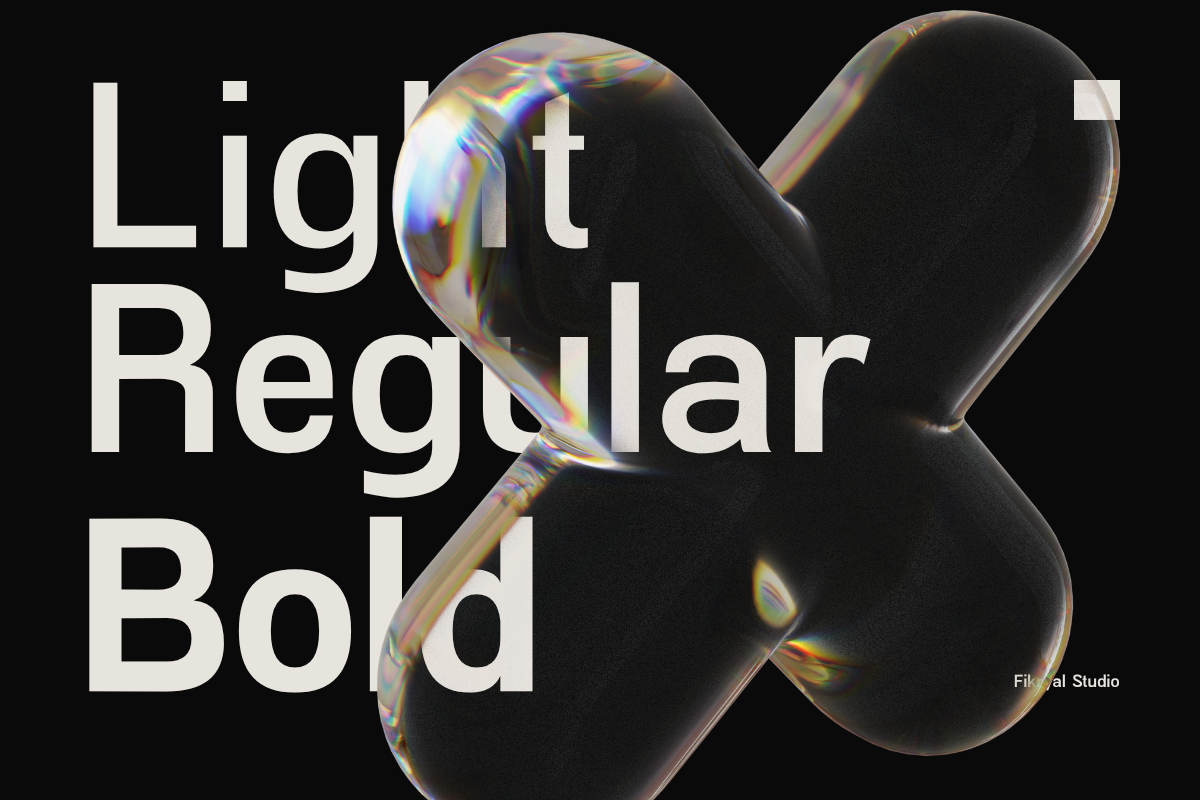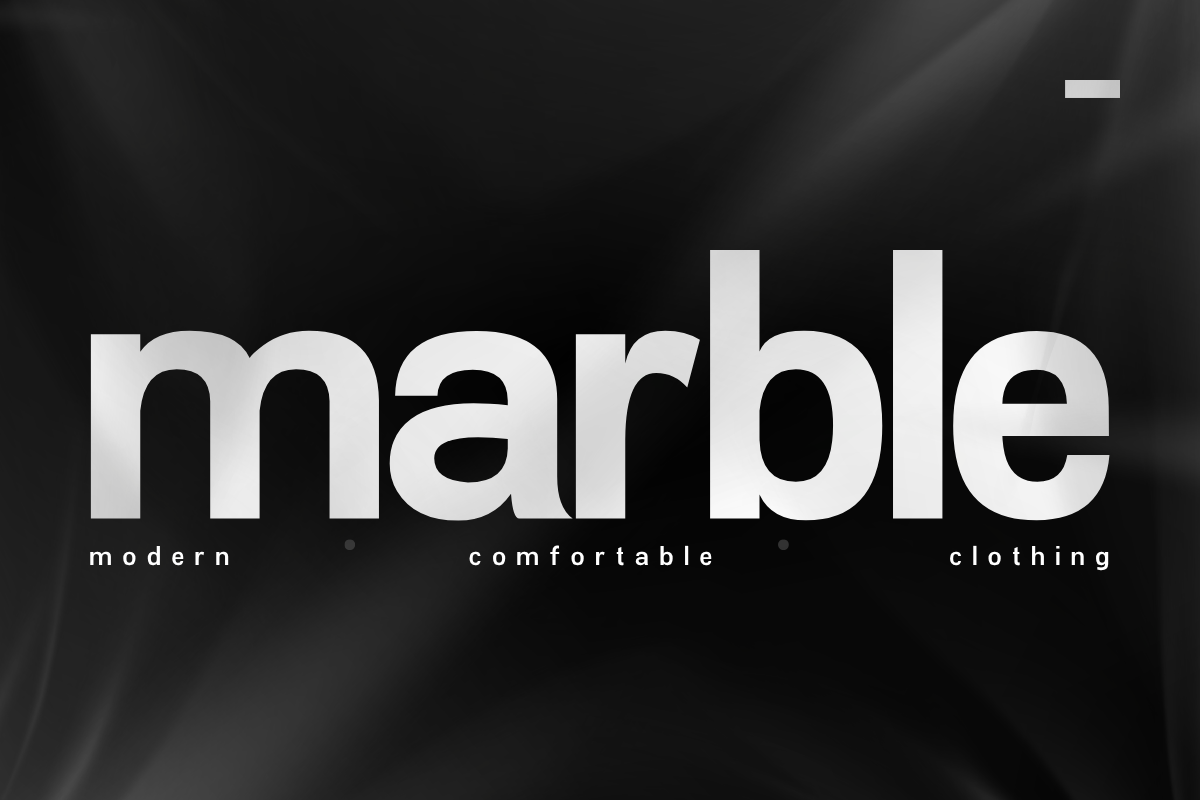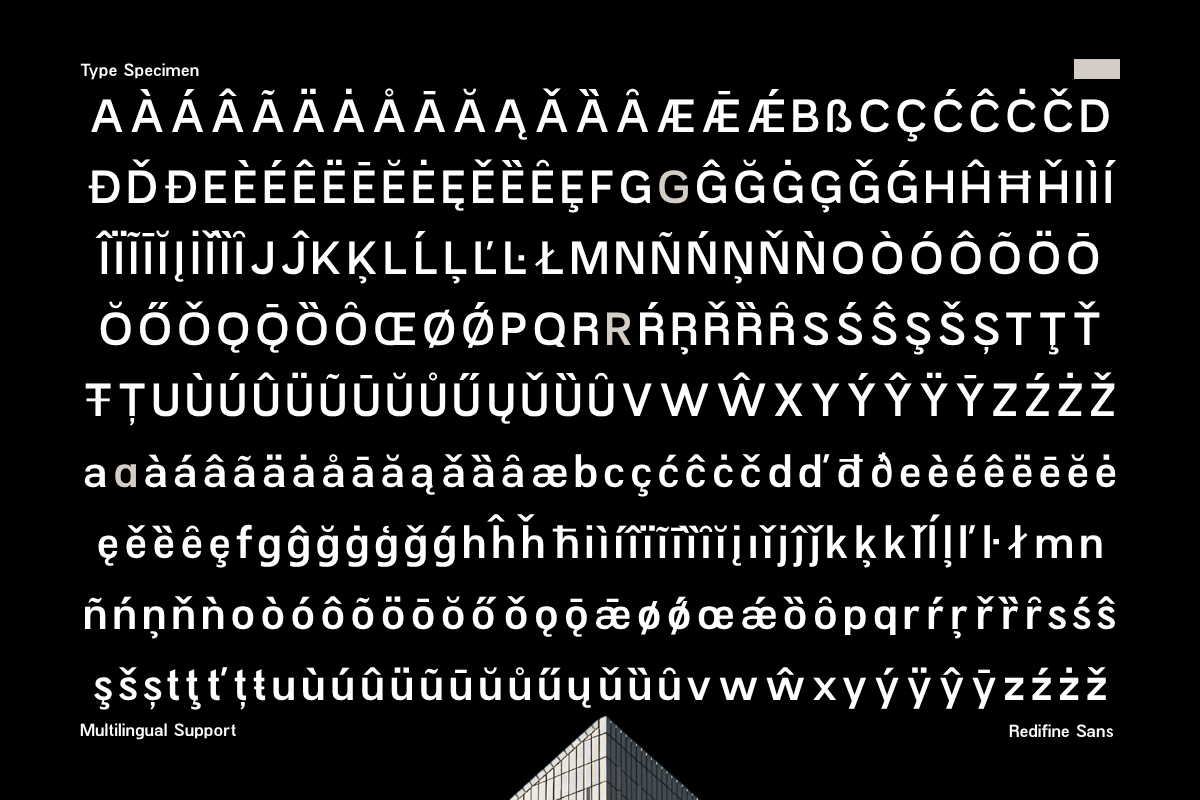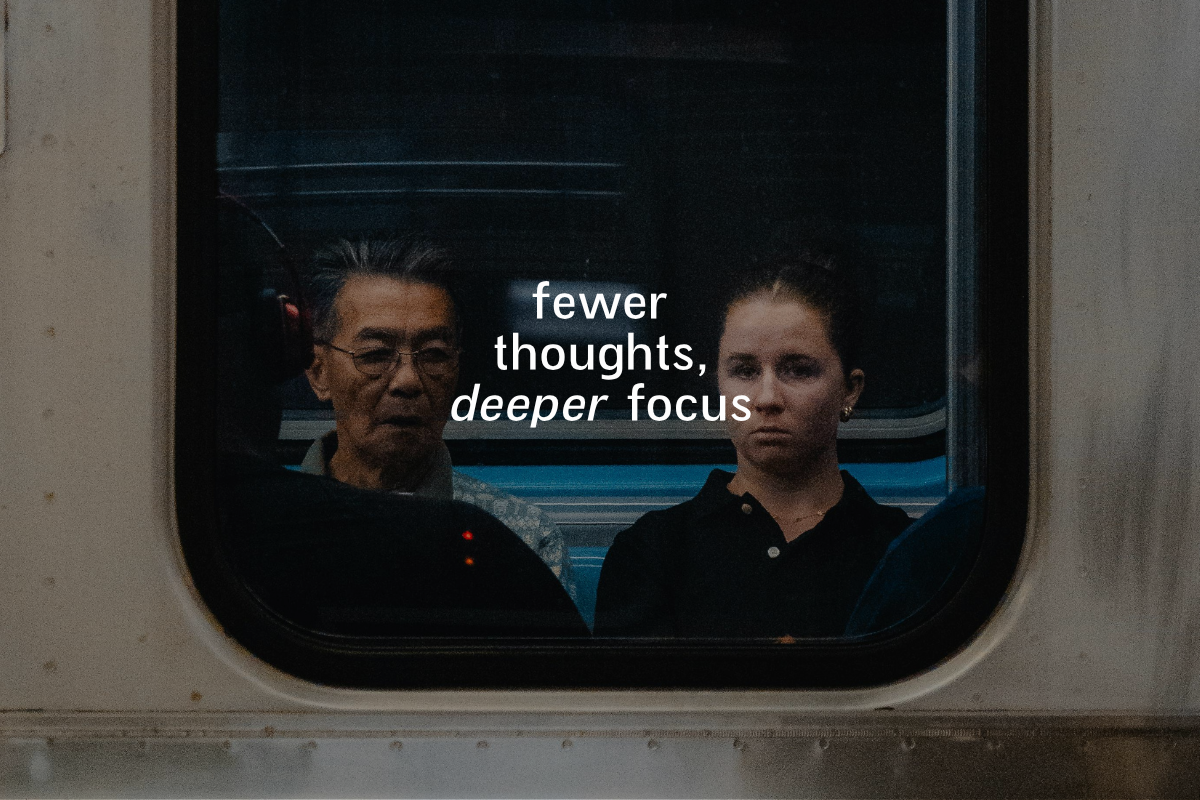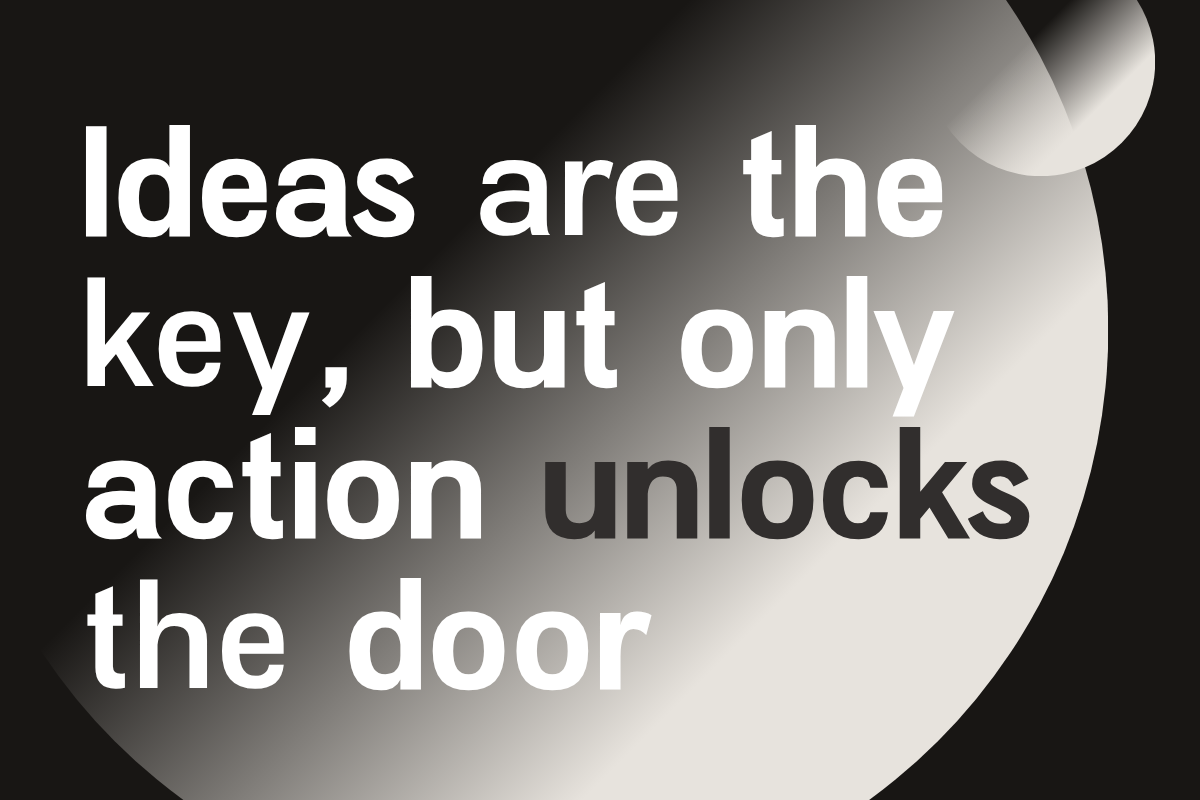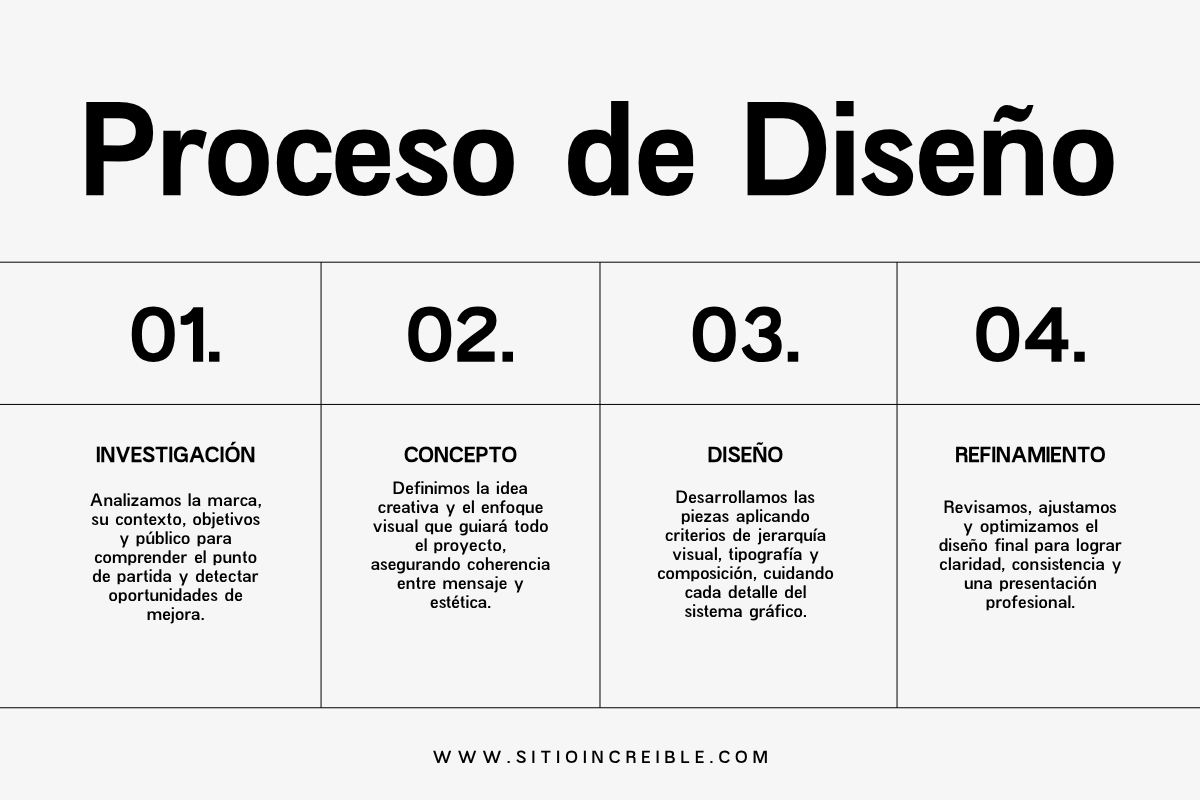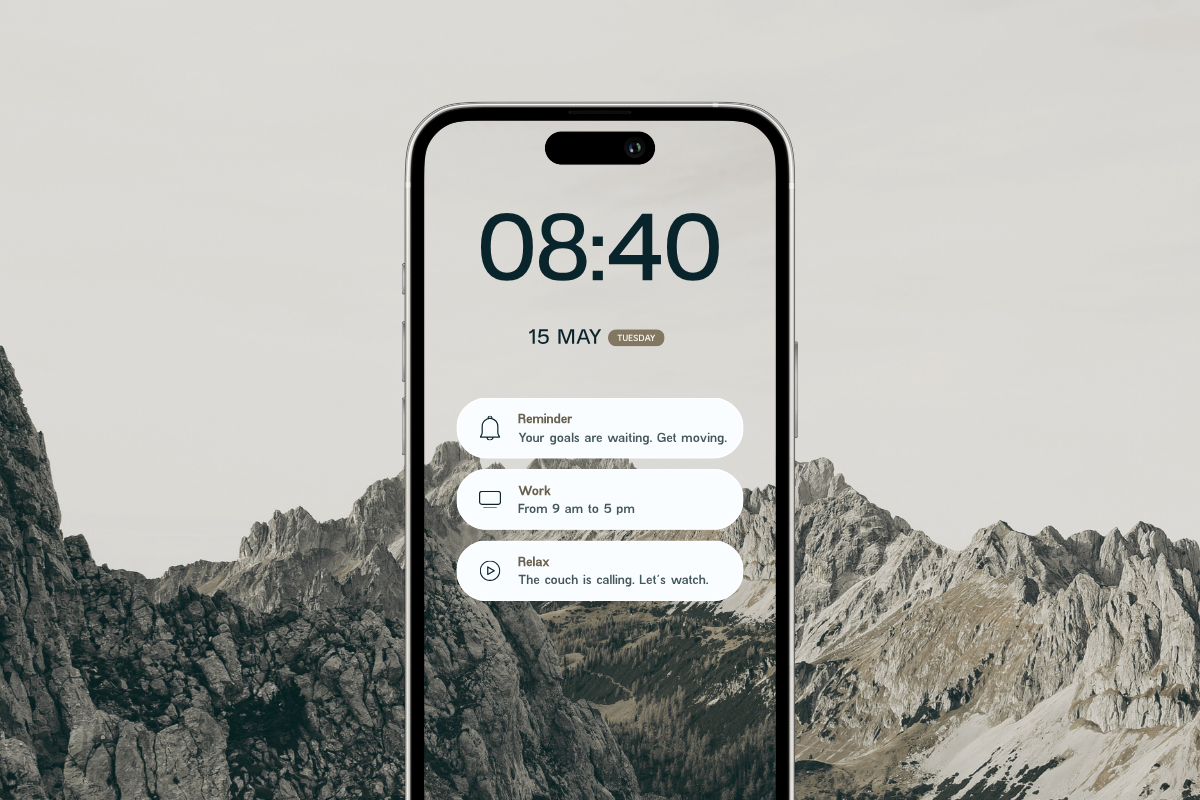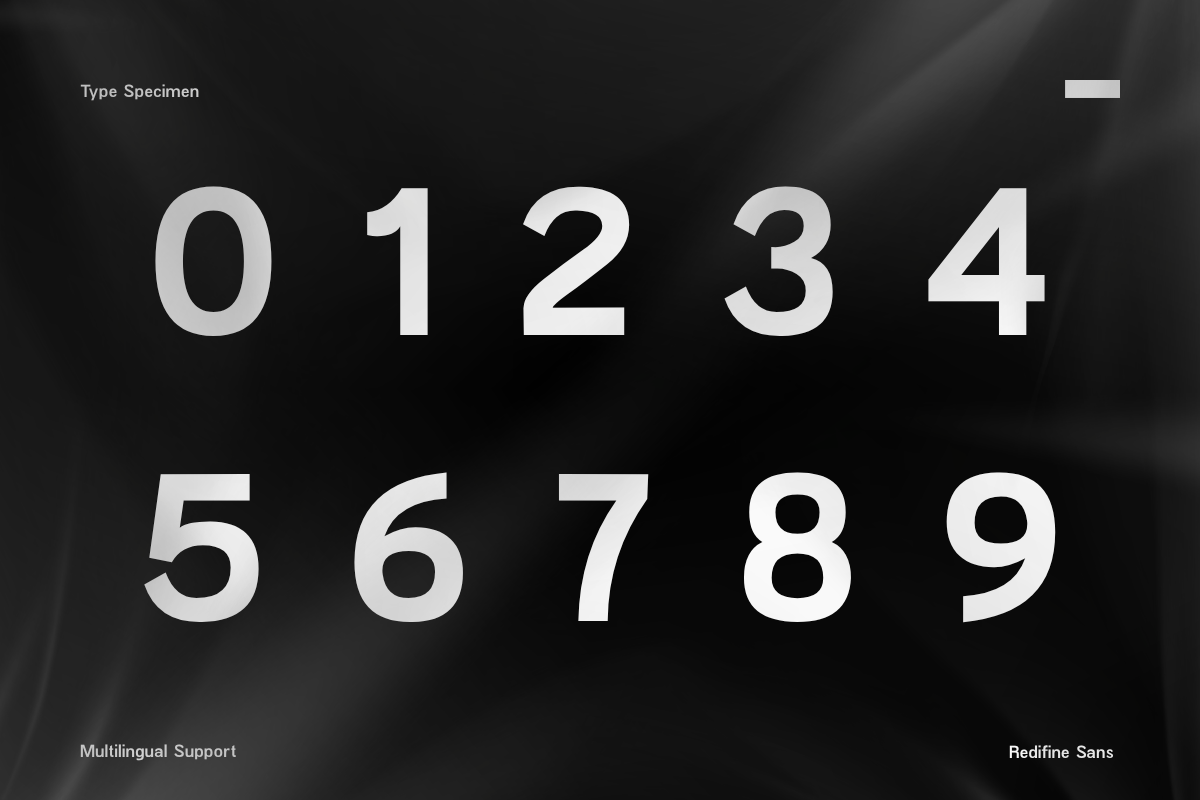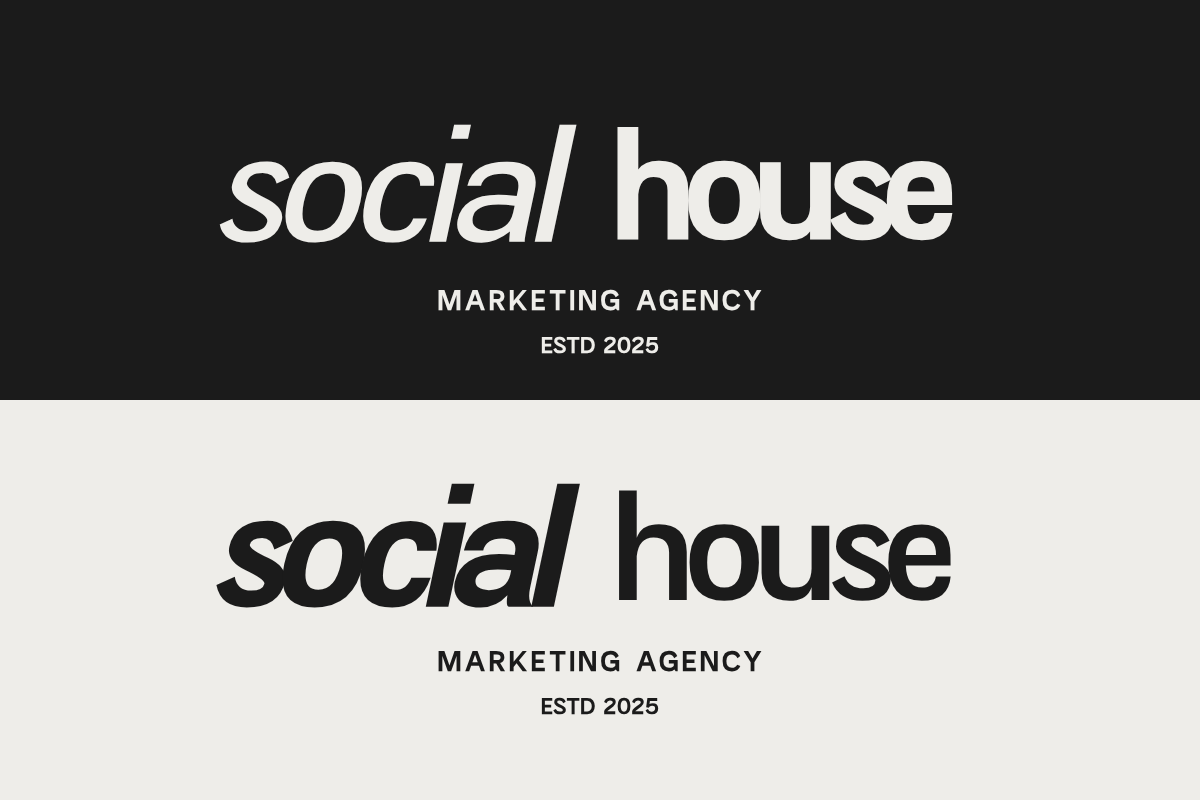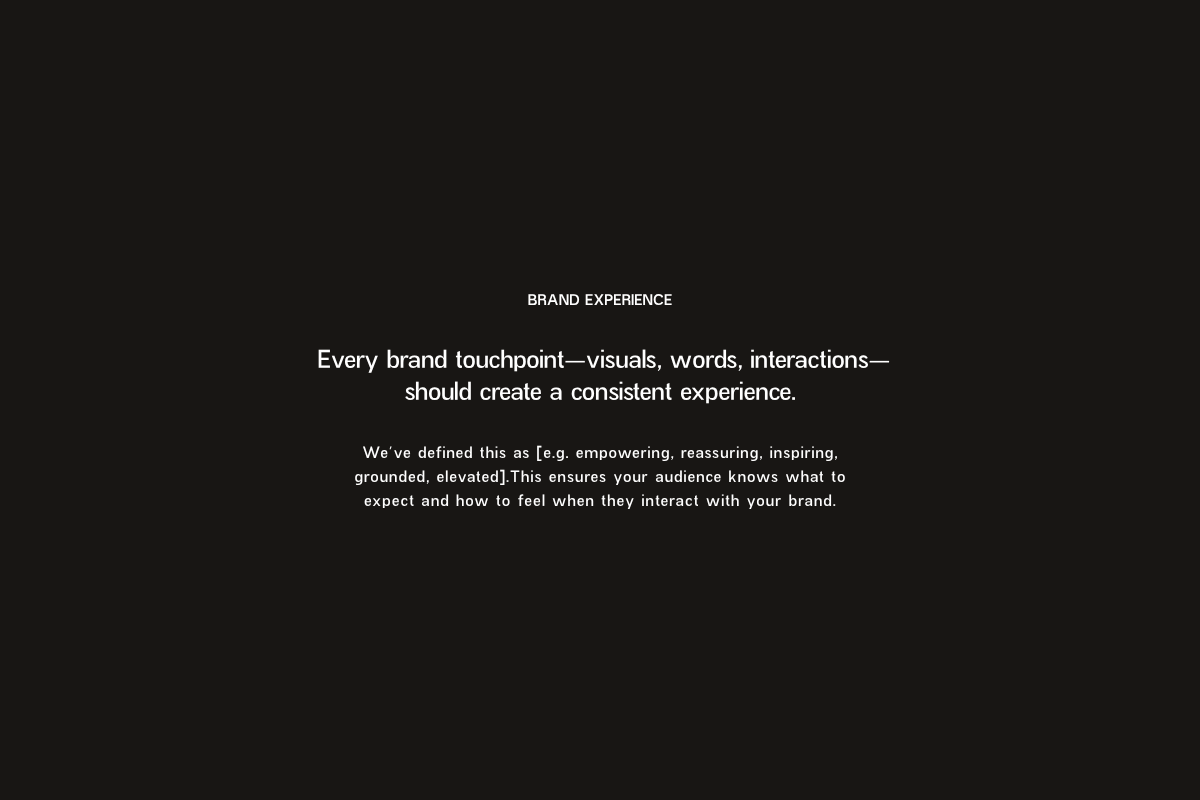
Redifine – Sans Serif Font
Redifine is a clean, modern sans serif font designed to deliver clarity, elegance, and versatility in every project. With its minimalist structure and contemporary feel, Redifine is perfect for designers who want a professional and polished look without sacrificing readability.
Crafted with precision, this font family offers a balanced combination of simplicity and functionality, making it suitable for a wide range of design purposes—from branding and corporate identity to editorial layouts and digital interfaces.
Redifine comes with multiple weights and styles, including Light, Regular, Bold, and their Italic counterparts, giving you flexibility to create strong visual hierarchies and dynamic typography compositions.
In addition, Redifine supports extensive multilingual characters, ensuring your designs can reach a global audience with ease.
Clean & Modern Sans Serif Style
6 Styles: Light, Regular, Bold + Italics
Minimalist and Professional Look
Extensive Multilingual Support
Highly Readable for Print & Digital
Perfect for Branding, UI/UX, Editorial, and Corporate Use.
Logo & Branding
Corporate Identity
Website & UI Design
Editorial & Magazine Layouts
Advertising & Marketing Materials.
Redifine Light
Redifine Light Italic
Redifine Regular
Redifine Italic
Redifine Bold
Redifine Bold Italic.